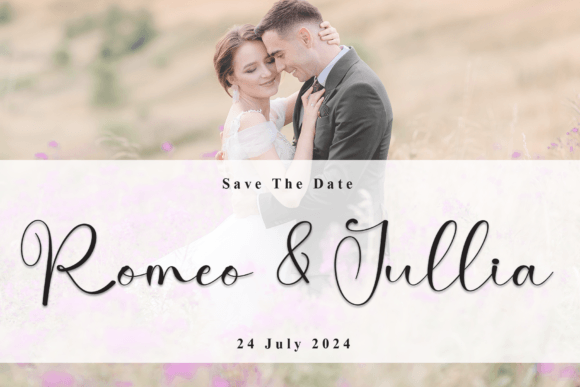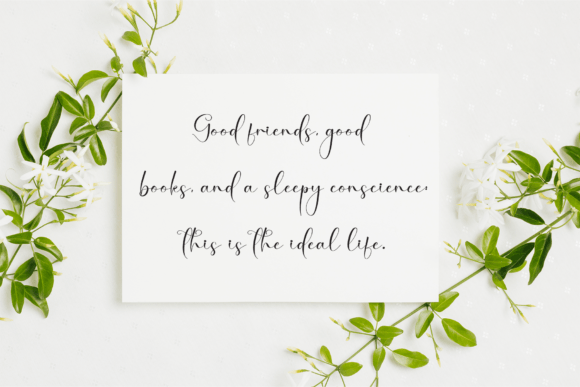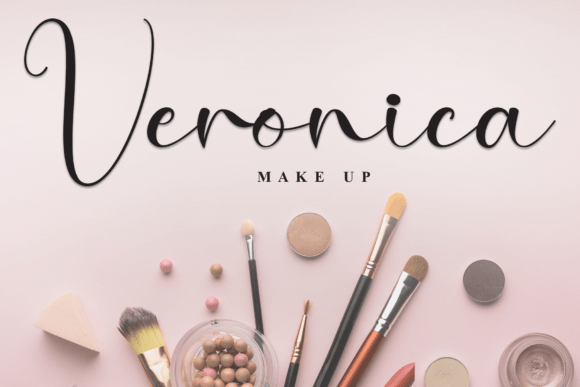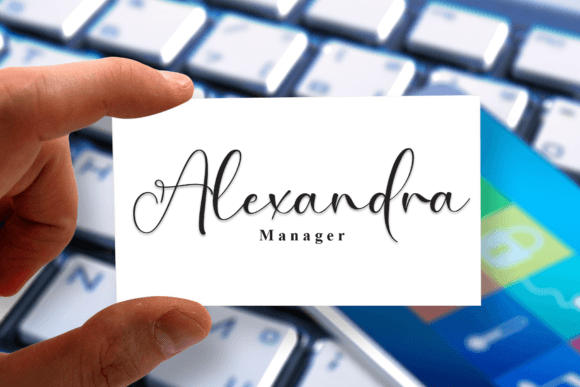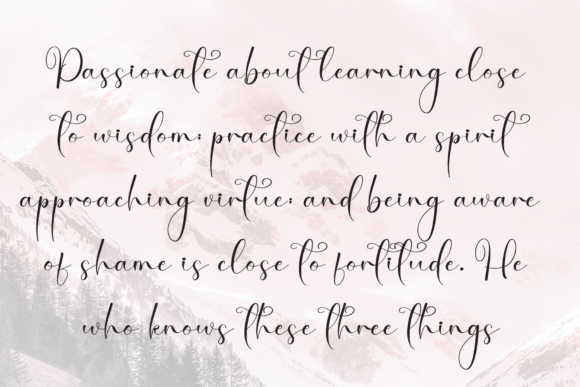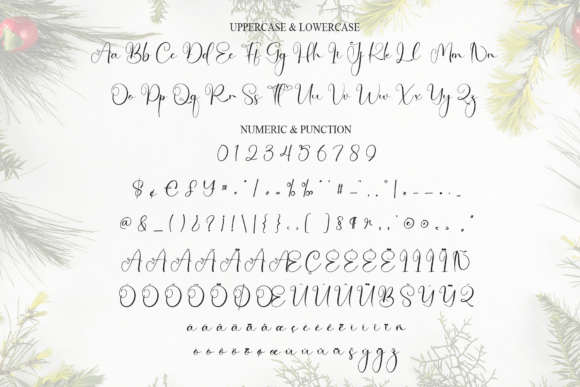
The Magic of Greathing Christmas Font: Elevate Your Designs with Elegance
Greathing Christmas is a stylish handwritten script font that exudes elegance and charm with its flowing, graceful curves. Here’s what I love about it:
- ✨ Elegant and sophisticated: Greathing Christmas adds a personal and refined touch to any design.
- ✅ Versatile: Perfect for invitations, logos, branding, and more.
- 💫 Delicate strokes: Bring warmth and creativity to your projects with its unique strokes.
However, there are a few quirks to be aware of:
- 🤔 Limited use in body text: Due to its elegant and cursive nature, Greathing Christmas might not be the best choice for lengthy body text.
- ⚠️ Requires attention to spacing: To ensure optimal readability, be mindful of the spacing between letters and words.
The Story Behind Greathing Christmas
Greathing Christmas was designed with the intention of capturing the essence of the holiday season: warmth, elegance, and joy. The designer aimed to create a font that would add a personal touch to any design, making it perfect for special occasions and everyday use.
Q: What type of projects is Greathing Christmas best suited for?
A: Greathing Christmas is perfect for invitations, logos, branding, and any project that requires an elegant and sophisticated touch.
Q: Is Greathing Christmas available in different weights or styles?
A: Currently, Greathing Christmas is available in a single weight. However, the designer may release additional weights or styles in the future.